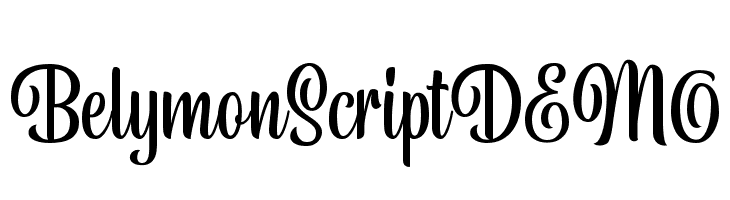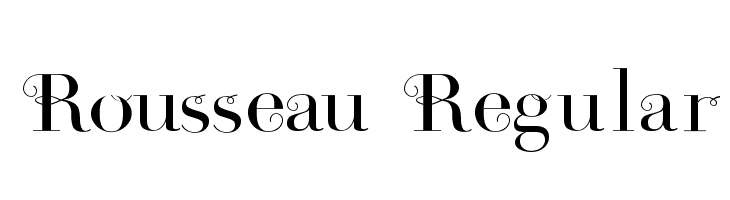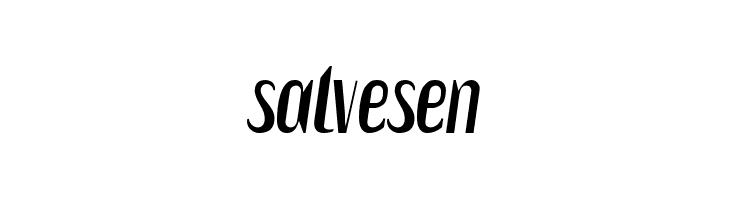
( Flamde Studio - Nur Solikh - creativemarket.com/flamde/ )
A bold, expressive script font with flowing, connected letterforms.
( IYBI - Radi Safi - ifyoubuildit.com.au/ )
A sleek, modern italic font with elongated, elegant characters.
A bold, geometric font with a halftone gradient effect.
( Ink creative - creativemarket.com/inkcreativeart/ )
An elegant script font with flowing, interconnected letters and ornate flourishes.
( Intellecta Design - Paulo W - new.myfonts.com/foundry/Intellecta_Design/?refby=paulow )
A bold, cursive handwritten font with dynamic, flowing characters.
( Jonathan S. Harris - www.tattoowoo.com )
A dynamic and fluid script font with elegant, flowing letterforms and high contrast.
( Konstantine Studio - konstantinestudio.com/ )
An elegant, flowing script font with a hand-drawn, calligraphic style.
( Konstantine Studio - konstantinestudio.com/ )
An elegant script font with flowing, cursive letterforms and high contrast.
( Leanne Rousseau - leannedesign.ca )
An elegant and decorative font with intricate swirls and flourishes.
( Letterhend Studio - Hendry Juanda - creativemarket.com/letterhend )
A lively and elegant script font with smooth, flowing curves.